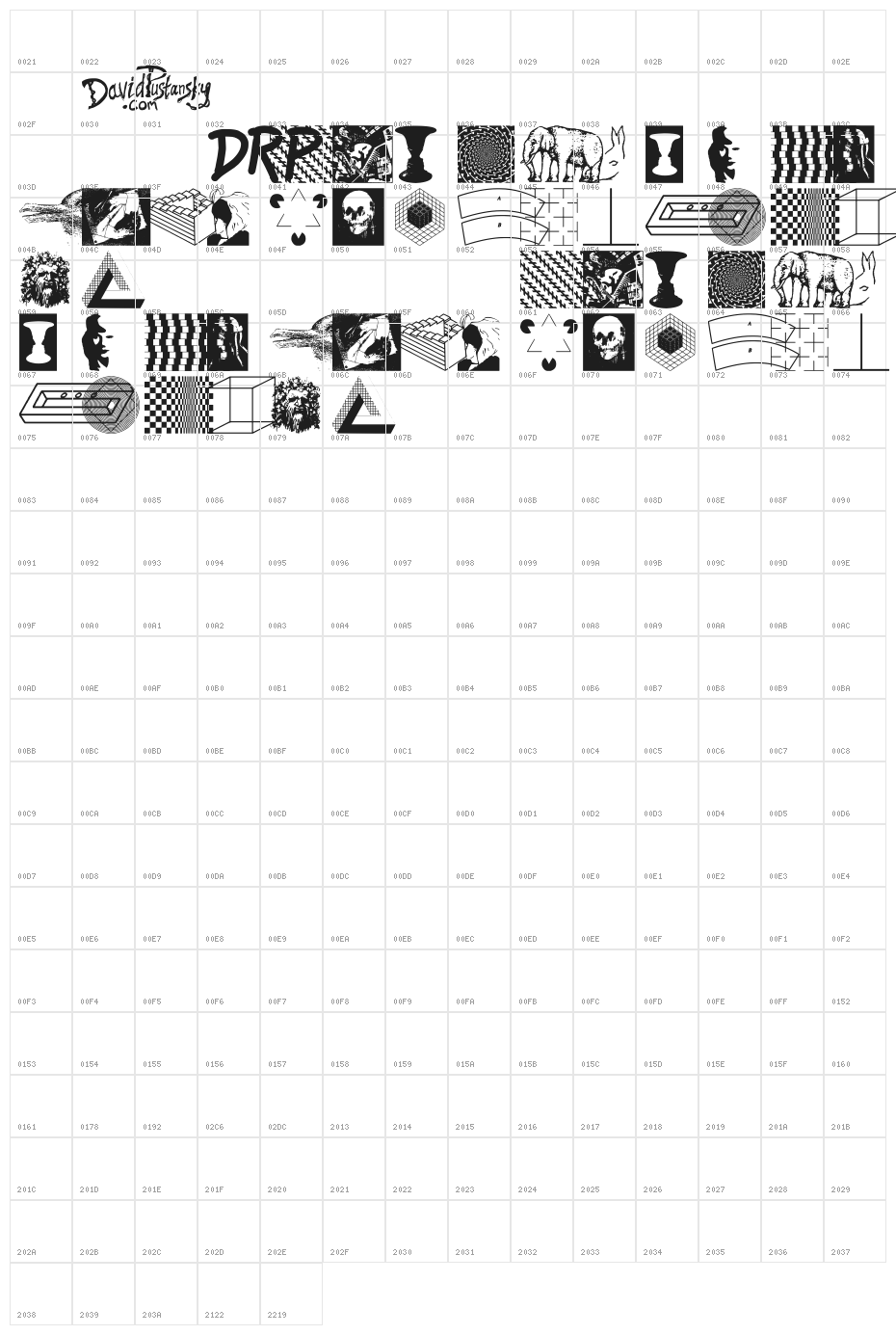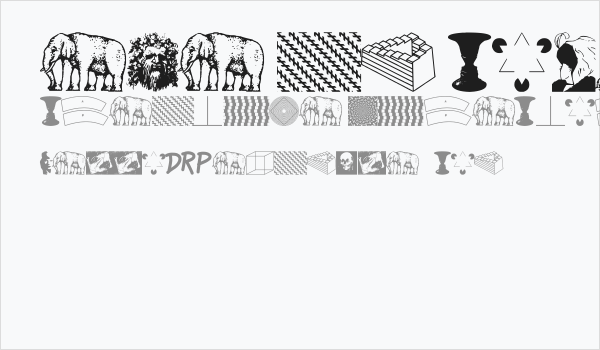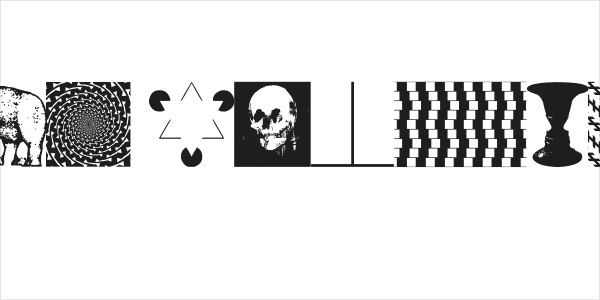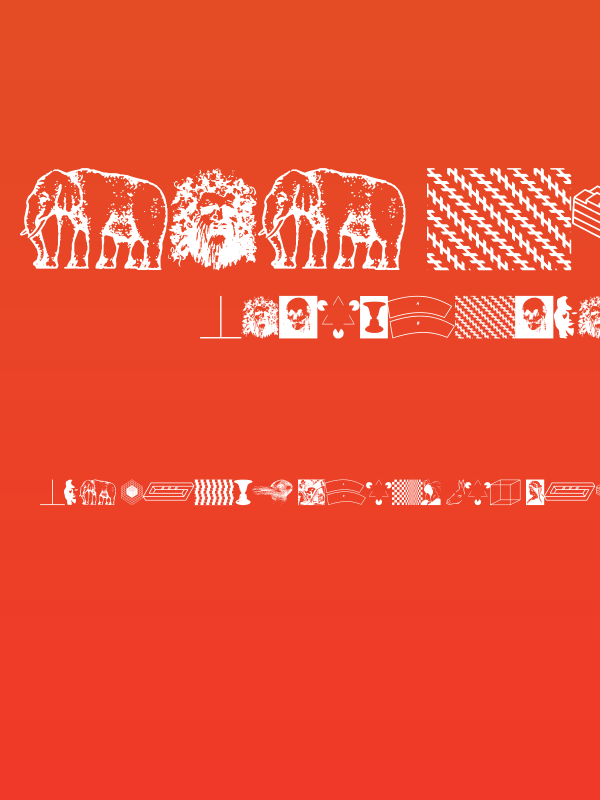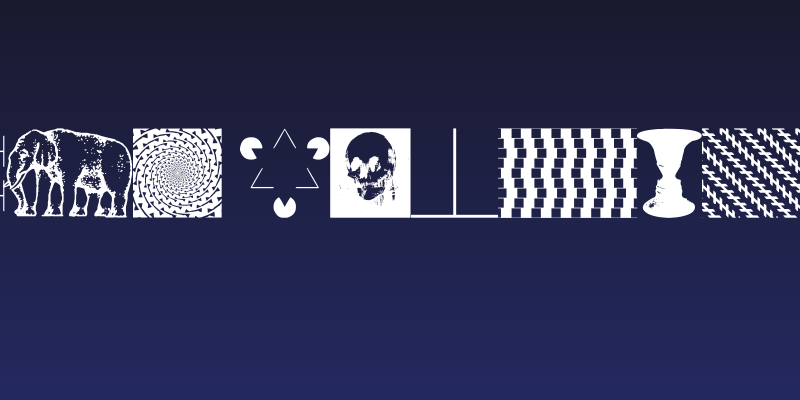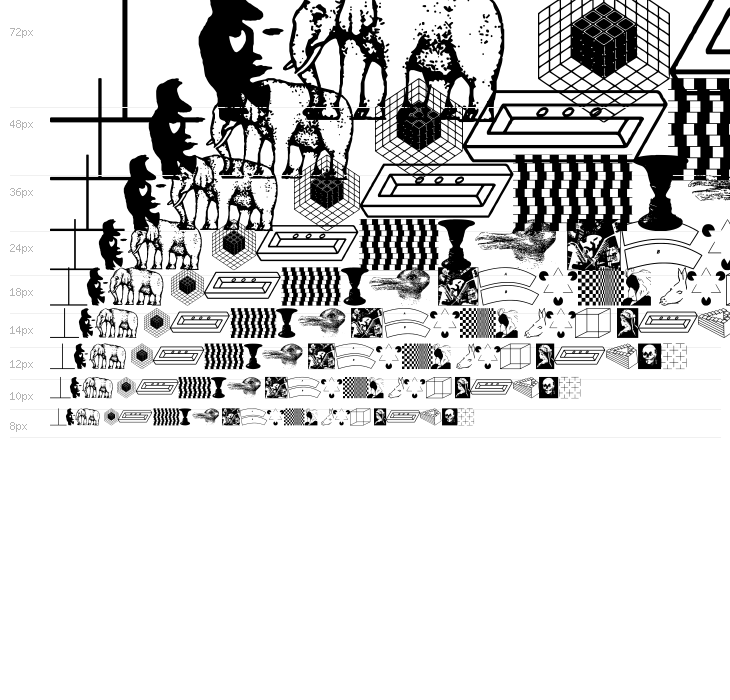
Eye Am Confused Optical Illusions Font
Eye Am Confused Optical Illusions Description
A highly decorative and illustrative font composed entirely of optical illusion images and visual puzzles, each character represented by a unique black-and-white drawing. The glyphs include famous illusions such as ambiguous figures, impossible objects, and geometric distortions, making the set visually complex and engaging.
| Overall Style | Decorative, Artistic, Playful |
| Use Case | Display, Posters, Educational, Art projects |
| Proposed Projects | Educational materials, posters, art projects, puzzle books, creative branding. |